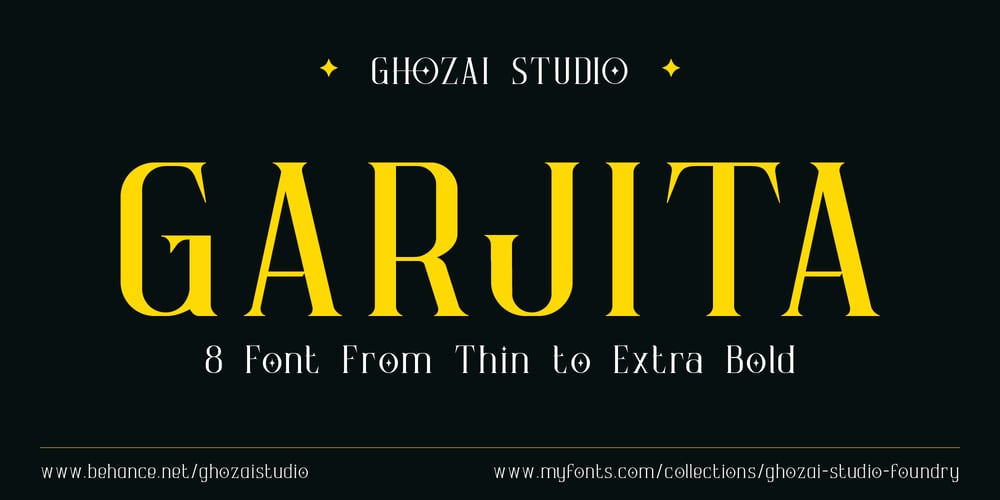
Garjita
Garjita font
Garjita Font Family was designed by Manzur Ghozaali and published by Ghozai Studio. Garjita contains 8 styles and family package options. Garjita is an elegant serif font combining thin and bold strokes with a star accent to make it unique and grab more attention from your audience. This font makes a harmonious combination of your modern and classic layouts. Perfect for any purpose, such as luxury design (hotel logo, restaurant menu, restaurant poster or web, wedding invitation), fashion, band poster, headline, and many others.